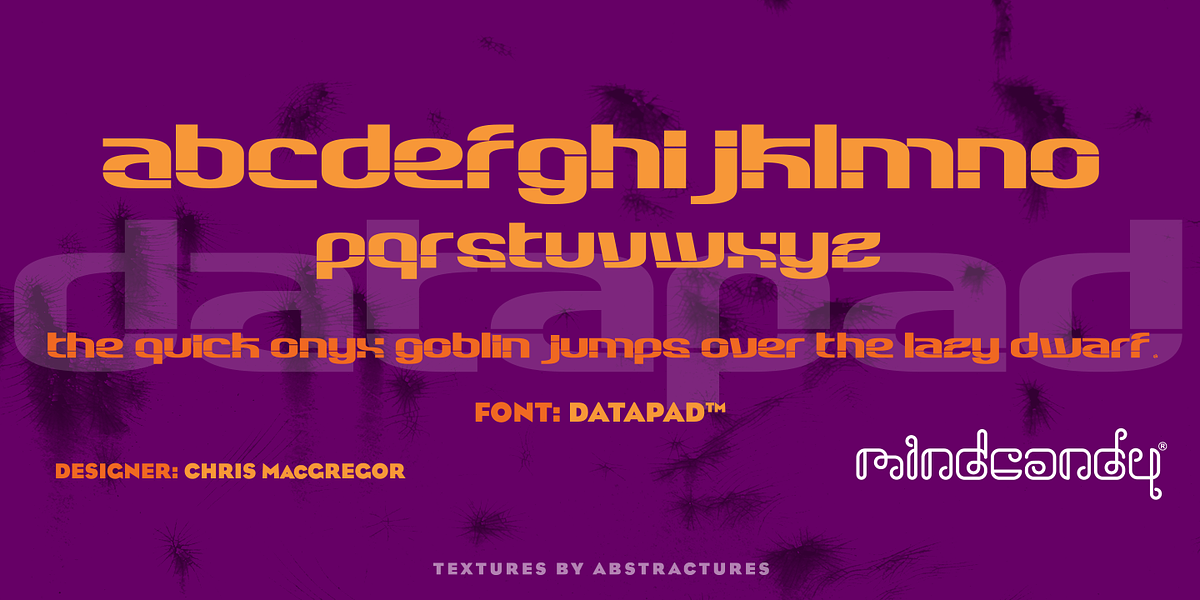
Datapad™
This lowercase-only display font is designed for novelty and playful applications. Its unique character set makes it suitable for eye-catching headlines and branding elements.